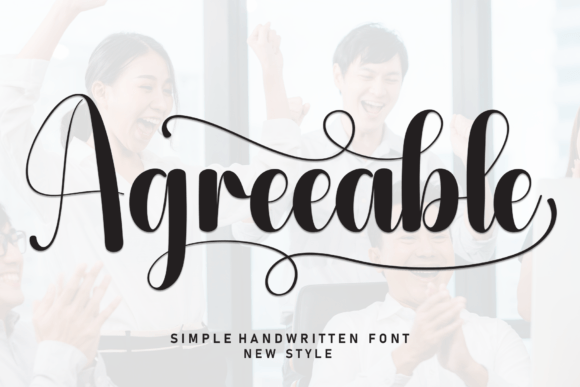
Journey into the world of Agreeable, a script font that captures the essence of charm and playfulness. Each character dances across the page, exuding a sense of warmth and joy, making it the perfect font for adding a personal touch to your creative projects.
With its whimsical curves and playful strokes, Agreeable dances across the page like a melody, inviting you to express yourself in a unique and memorable way. Whether you're crafting wedding invitations, heartfelt cards, or designing playful posters, Agreeable is your perfect companion, adding a touch of magic to every letter.
Imagine your words, adorned in the elegance of Agreeable, becoming cherished keepsakes, treasured for their heartfelt messages and the captivating charm of the font. Let Agreeable be your artistic muse, inspiring you to create designs that resonate with your audience, leaving an unforgettable impression.
Agreeable's versatility extends beyond its aesthetic appeal, offering a seamless user experience that makes design effortless. Its intuitive flow and smooth letterforms ensure that your creative vision translates flawlessly onto the page, allowing you to focus on expressing your ideas without technical hiccups.
More than just a font, Agreeable is an extension of your creativity, a tool that empowers you to communicate your message with clarity and style. Embrace the magic of Agreeable and embark on a creative journey where your words come alive, captivating hearts and leaving a lasting impact.